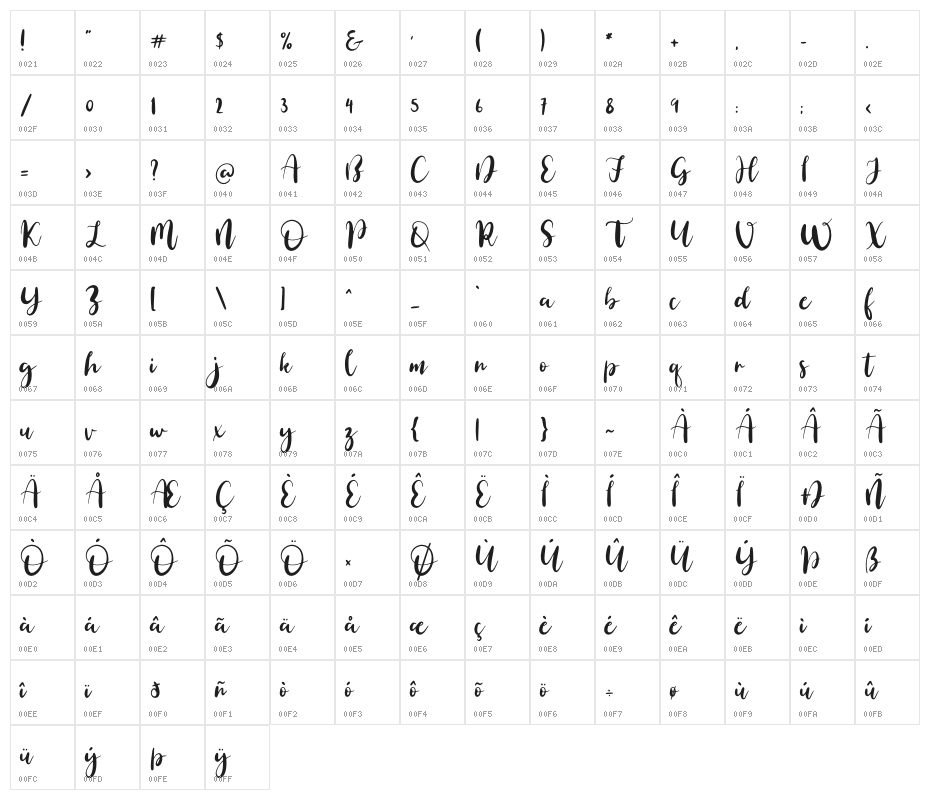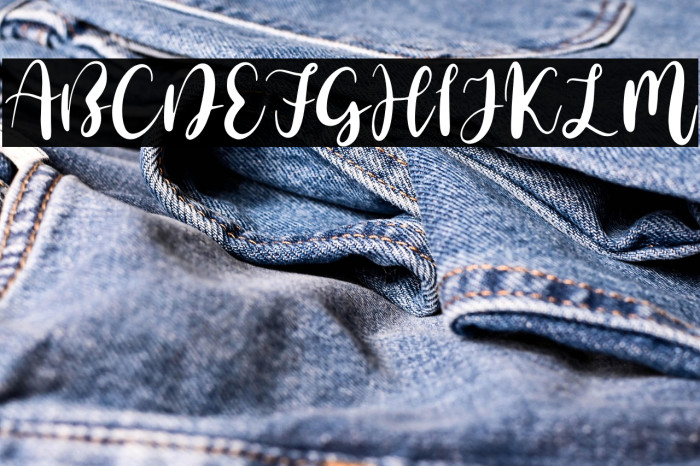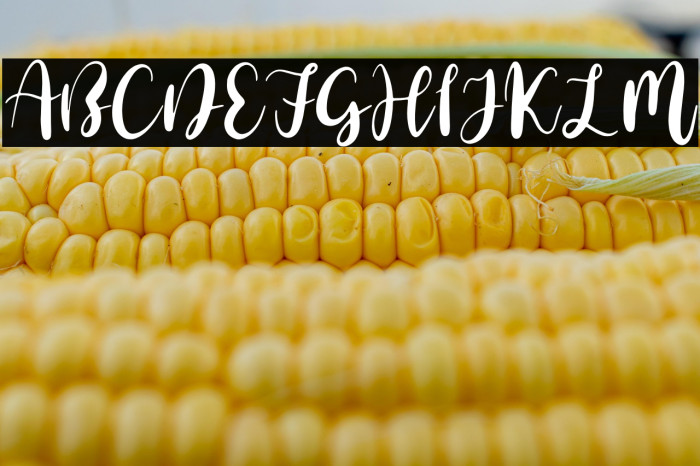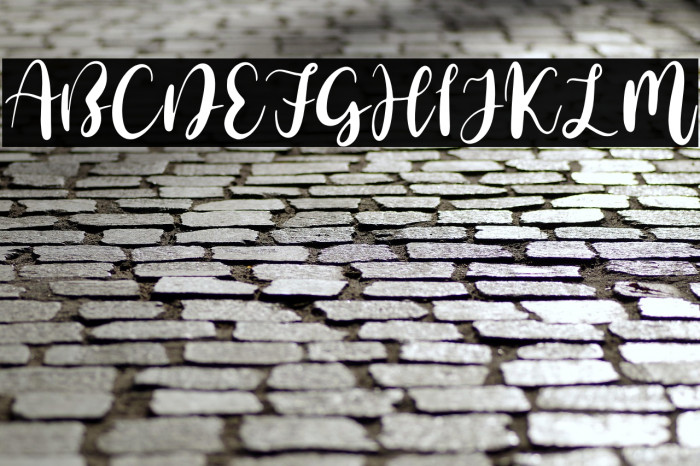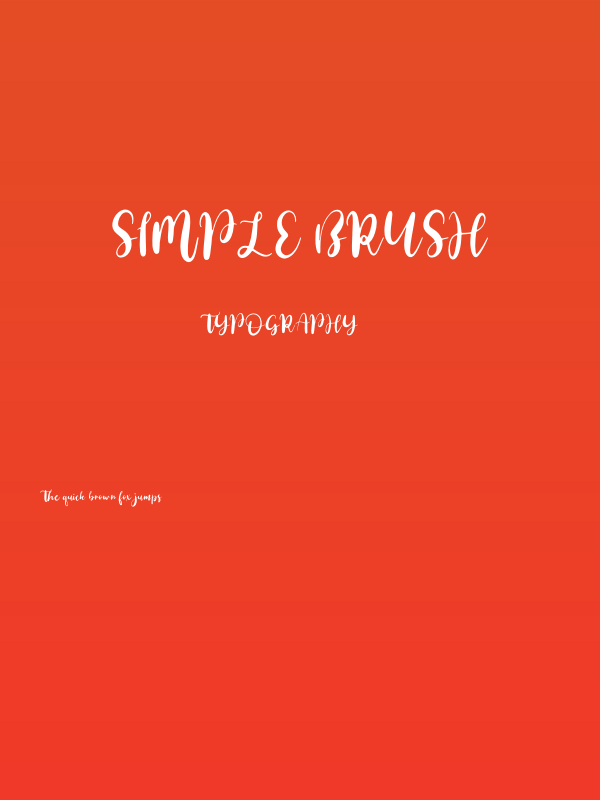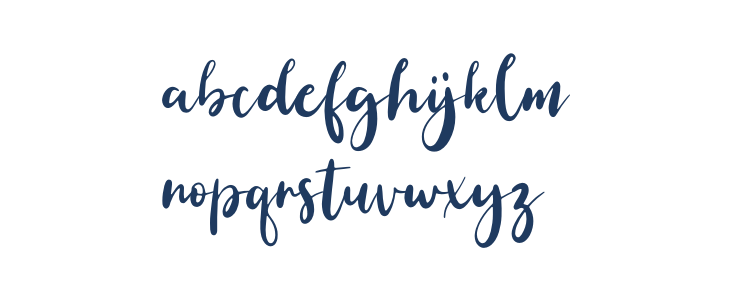
Simple Brush Font
Simple Brush Description
This font features a lively and expressive brush script style, characterized by its fluid and dynamic strokes. The letters are crafted with a sense of movement, giving it an energetic and artistic feel. The uppercase letters are bold and prominent, while the lowercase letters maintain a consistent flow, enhancing readability. The numerals are clear and well-defined, complementing the overall aesthetic. Special characters are thoughtfully integrated, maintaining the font's cohesive look. This font is perfect for projects that require a personal touch or a creative flair.
| Proposed Projects | Ideal for greeting cards, invitations, branding, and artistic projects. |